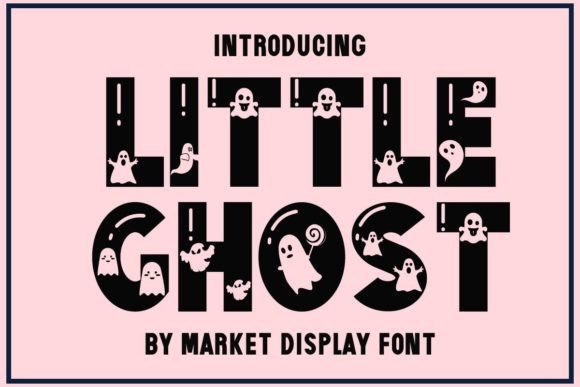
Enter the world of Little Ghost, a decorative font family with a touch of spooktacular charm, perfect for your Halloween-themed creations! Dive into a treasure trove of spirited characters, each stroke imbued with a playful personality that will bring your designs to life. Unleash your imagination and conjure up spine-tingling posters that send shivers down the spine, or craft hauntingly beautiful covers that will captivate all who behold them. Let Little Ghost be your creative companion, guiding you through a realm of ghoulish delight as you transform your digital canvas into a haunted masterpiece.
With Little Ghost, the possibilities are as endless as the night sky on All Hallows' Eve. Imagine crafting invitations that transport your guests to a realm of mystery and intrigue, or creating social media posts that will have your followers spellbound. Unleash your creativity and weave tales of terror with Little Ghost as your trusted storyteller, guiding you through a world where imagination knows no bounds.
But Little Ghost isn't just confined to the realm of the supernatural. Its versatility extends far beyond the haunted realm, lending its charm to a myriad of design projects. Whether you're crafting whimsical posters for your local theater's production of "The Addams Family" or conjuring up enchanting invitations for a Halloween-themed party, Little Ghost will cast its spell and transform your designs into works of art.
But what truly sets Little Ghost apart is its ability to evoke emotion. Its playful, spirited nature will infuse your designs with a sense of cheerfulness that will warm the hearts of your audience. Use Little Ghost to create designs that will make them smile, designs that will transport them to a world of pure imagination where anything is possible.